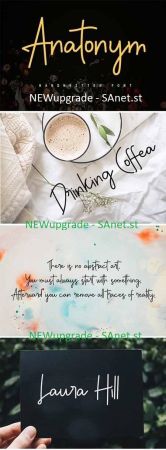
DesignOptimal - Anatonym Font
Anatonym is a cool and fancy handwritten font with an original style. It’s the perfect font for adding that special feel to any design project!